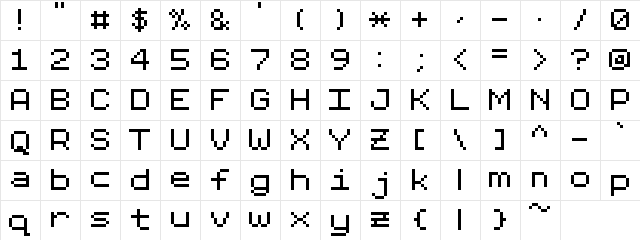
Jump None Regular
Design Context for Jump None Typeface
Jump None offers clean, dependable letterforms without strong stylistic allegiance, making it a practical choice for designers who need flexibility.
Pro Tip: Pair Jump None with a font of contrasting weight or personality to build a more expressive typographic hierarchy.